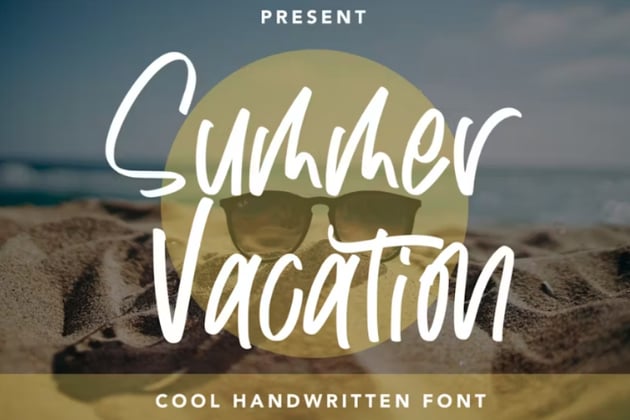
The Different Types of Writing Fonts: Calligraphy Font Styles, Hand Lettering, and More
Curious about writing fonts, calligraphy fonts, handwriting fonts, and more? In this article, we'll explore different types of writing fonts, where they come from, and what the different terms mean. We'll also observe some different examples of writing fonts, like chalkboard fonts, kids' handwriting fonts, script fonts, and others.
What Is a Writing Font?
Fonts are a collection of letters. They are typically a graphical representation of a set of characters, all with one continuous aesthetic. Every computer likely has a collection of fonts on it; this article is displayed in a font in your browser.
In most cases, a writing font refers to a font that has a hand-drawn or handwriting aesthetic. This means it includes a lot of styles: there are many different types of writing fonts. This could include anything from informal kids' handwriting fonts to ultra-decorative calligraphy styles.
However, you may hear others refer to "writing fonts" as fonts best used for actual reading and writing books. If you're an author looking for the perfect writing font, you're likely looking for a serif or sans serif font with strong readability and legibility at small sizes. That won't be our focus in this article. Instead, we're going to focus on a handwriting aesthetic and provide examples of fonts that look like handwriting. If you're looking for different writing fonts for your next manuscript or for long paragraphs of body copy, check out these collections. They've got design inspiration right up your alley.
Now, let's dig into some of the different styles of writing fonts and where they come from. We'll start with one of the most popular different types of writing fonts: a calligraphy font style.
What Is Calligraphy?
Calligraphy is a type of hand lettering, but not all hand lettering is necessarily considered calligraphy. It also has roots all across the globe—many cultures, across many eras, have valued beautiful handwritten letterforms. It's not exclusive to Latin characters. The term "calligraphy" is often associated with a style: beautiful, elegant letters drawn with sweeping strokes.
However, a term like "calligraphy font", while commonly used, is a little contradictory: calligraphy is inherently not a font, because calligraphy styles heavily rely on drawing, not on generated or reproduced letters. That's not to say calligraphy fonts don't exist, but the phase is typically referring to a visual style and not the process.
Complicated? Confusing? A little bit. Long story short: calligraphy is an art form where the artist usually uses a brush or pen to create artistic letters arranged in an intentionally visually engaging way. The letters are not "sketched out first"—instead, there is a learned process of applying pressure and strokes to create artistic lettering. Modern calligraphy styles can often employ modern tools, like watercolor pens, brush pens, and even digital tools like Procreate.
What Is Hand Lettering?
So what, then, is hand lettering? This term is a lot broader. If you draw your letters by hand, it's hand lettering. For example, when you walk into a coffee shop, you might see a chalkboard with artistic handwriting on it. This is hand lettering. Chalk lettering has become particularly trendy, over the years, as a means of creating beautiful compositions with letters.
And this is why calligraphy is considered a type of hand lettering, just as chalk lettering is. It's a process of creating letters by hand. It's often considered illustrative by nature. As a broader category, there are plenty of different techniques and aesthetics that could fit into this term. Hand lettering also has broad applications. For example, hand lettering could be used to create a logo design, rather than working with a font.
Turning back to calligraphy, we could technically sketch out letters that look calligraphic, with varied line widths, and then fill them in with ink. This would be hand lettering, as it's hand drawn and illustrative, but it wouldn't technically be considered calligraphy (in terms of process, not necessarily aesthetic). See the difference? Some of this might seem a bit nitpicky, but it often comes down to describing the creation process.